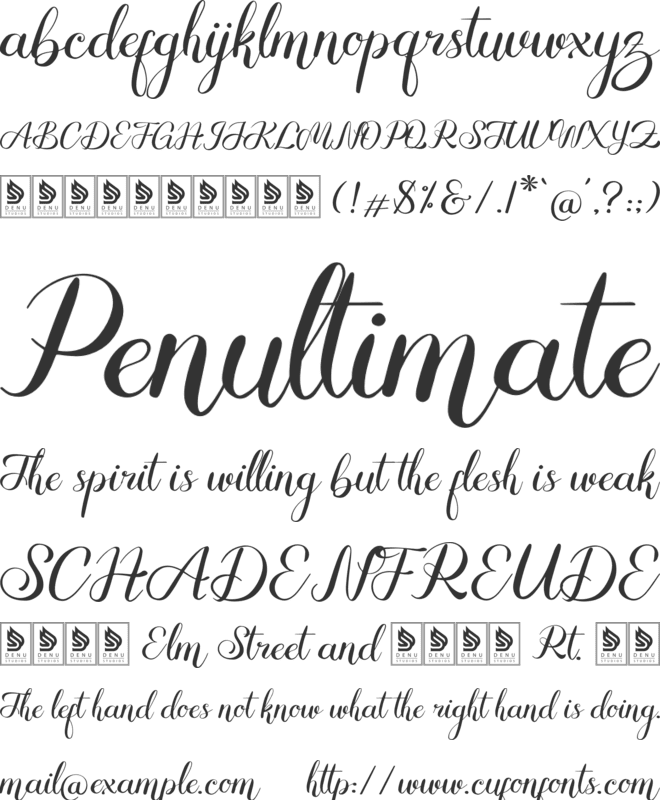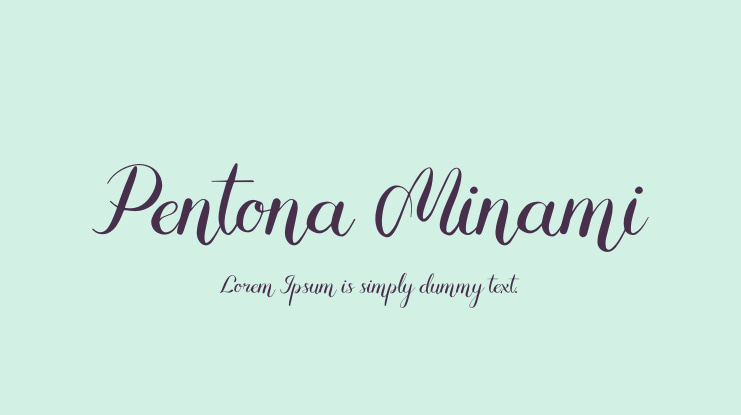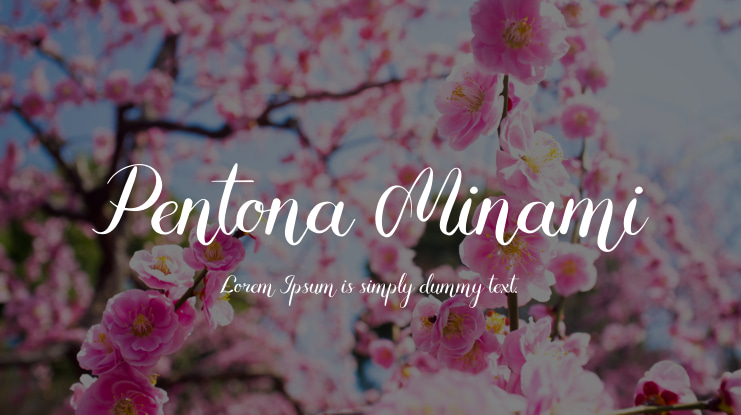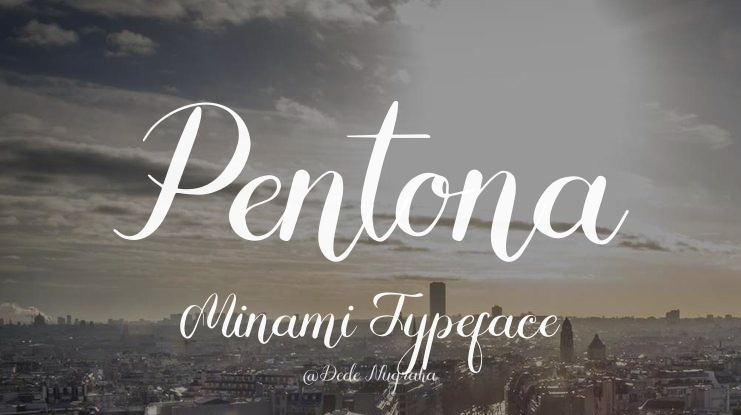
Pentona Minami | Handwritten Script is a versatile font suitable for various projects such as logos, branding, homeware designs, product packaging, mugs, quotes, posters, shopping bags, t-shirts, book covers, name cards, invitations, greeting cards, labels, photography, watermarks, special events, and more that require an elegant script style.